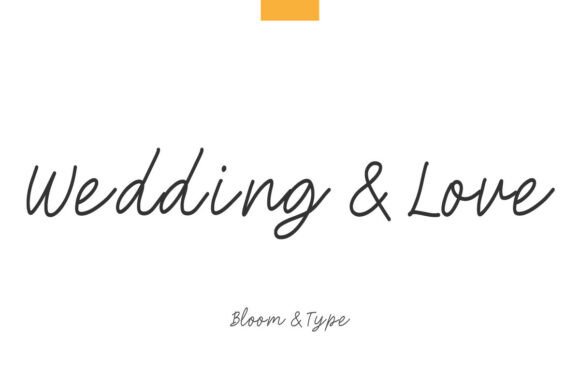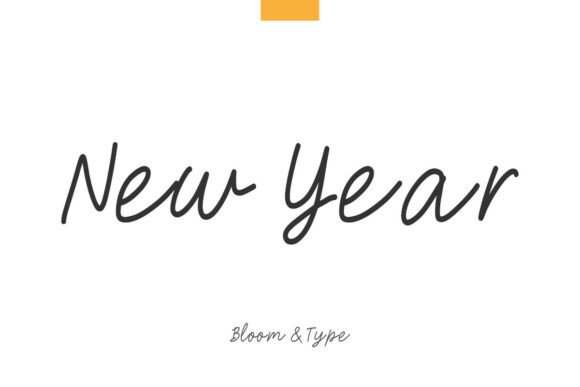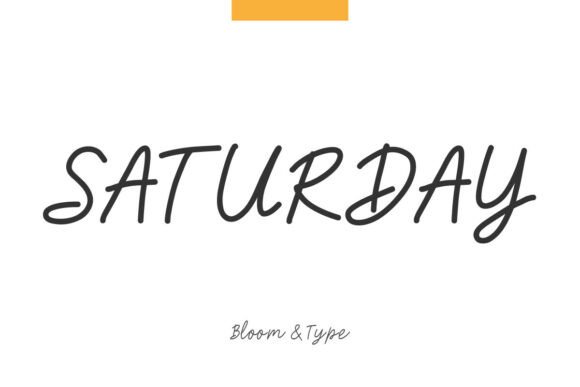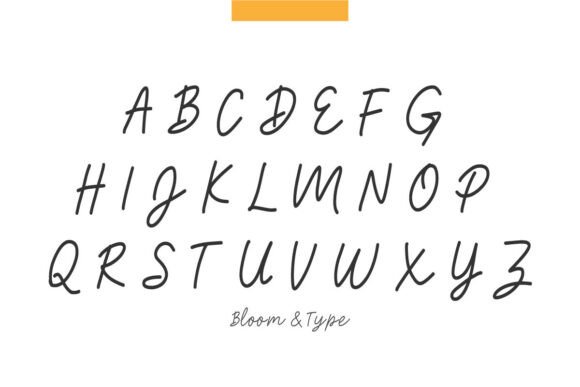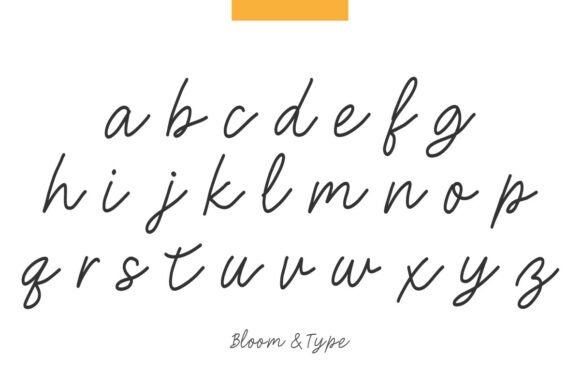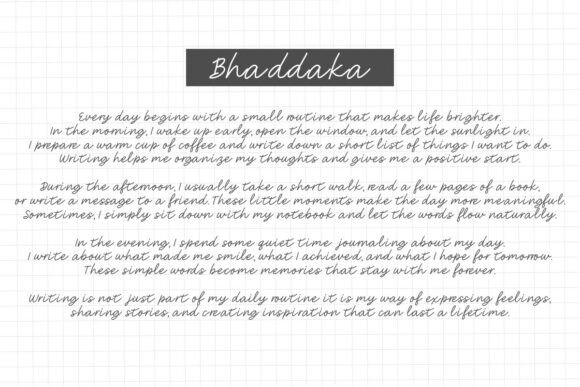
Bhaddaka Font: Elevate Your Designs with Elegant Penmanship
In the world of typography, fonts play a crucial role in conveying emotions and setting the tone for various creative projects. If you’re a designer or crafter looking for a modern handwritten font that exudes elegance and sophistication, look no further than Bhaddaka. Inspired by the beauty of natural penmanship, Bhaddaka is a contemporary script font that brings a touch of warmth and authenticity to every word.
The Unique Characteristics of Bhaddaka Font
Bhaddaka is a modern handwritten font that boasts smooth curves, clean lines, and a slightly forward-slanted style. This unique combination gives Bhaddaka a friendly yet professional impression, making it perfect for a wide range of creative applications. The font’s elegant design is reminiscent of natural handwriting, with a subtle slant that adds a sense of dynamism and movement.
What Makes Bhaddaka Stand Out?
- Smooth Curves and Clean Lines: Bhaddaka’s sleek design features smooth curves and clean lines that give it a modern and sophisticated look.
- Slightly Forward-Slanted Style: The font’s subtle slant adds a sense of elegance and dynamism, making it perfect for creative projects that require a touch of personality.
- Natural Handwriting Feel: Bhaddaka is designed to feel like natural handwriting, bringing a sense of warmth and authenticity to every word.
Perfect for Creative Applications
Bhaddaka is an incredibly versatile font that can be used for a wide range of creative projects. Whether you’re designing journaling quotes, wedding invitations, logo branding, or social media graphics, Bhaddaka is the perfect choice. Its elegant design and natural handwriting feel make it ideal for:
- Journaling Quotes: Add a touch of elegance to your journaling quotes with Bhaddaka’s smooth curves and clean lines.
- Wedding Invitations: Make your wedding invitations truly special with Bhaddaka’s romantic and sophisticated design.
- Logo Branding: Use Bhaddaka to create a unique and memorable brand identity that stands out from the crowd.
- Social Media Graphics: Elevate your social media graphics with Bhaddaka’s modern and elegant design.
Adding a Personal Touch to Your Designs
In today’s digital age, it’s easy to get lost in the noise. That’s why adding a personal touch to your designs is more important than ever. Bhaddaka font offers a unique opportunity to do just that. With its natural handwriting feel and elegant design, Bhaddaka brings a sense of warmth and authenticity to every word. Whether you’re creating minimalist designs or heartfelt messages, Bhaddaka adds a personal touch that speaks softly but clearly.
Why Choose Bhaddaka Font?
So why choose Bhaddaka font for your next creative project? Here are just a few reasons:
- Elegant Design: Bhaddaka’s modern handwritten design is perfect for creative projects that require a touch of sophistication.
- Versatility: Bhaddaka can be used for a wide range of creative applications, from journaling quotes to logo branding.
- Natural Handwriting Feel: Bhaddaka’s natural handwriting feel brings a sense of warmth and authenticity to every word.
In conclusion, Bhaddaka font is a modern handwritten font that offers a unique combination of elegance, sophistication, and warmth. With its smooth curves, clean lines, and slightly forward-slanted style, Bhaddaka is perfect for creative projects that require a touch of personality. Whether you’re a designer or crafter, Bhaddaka is an excellent choice for adding a personal touch to your designs. So why not give Bhaddaka a try and see how it can elevate your creative projects to the next level?